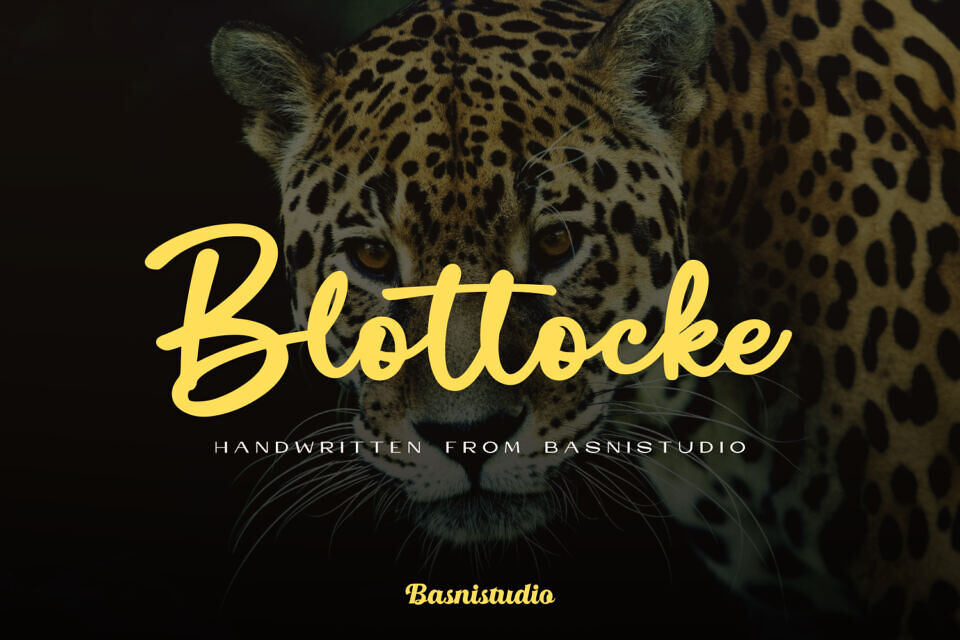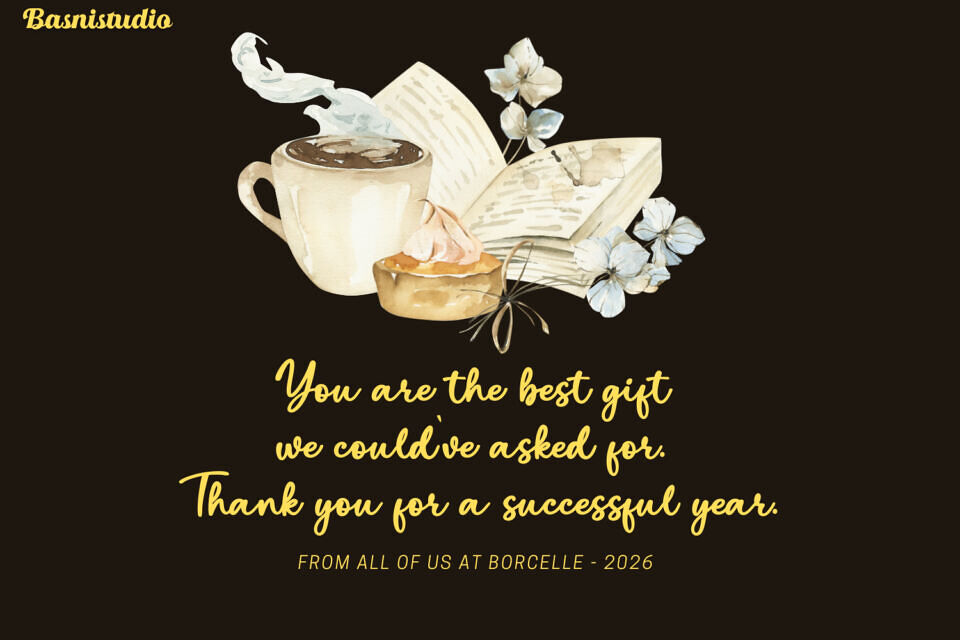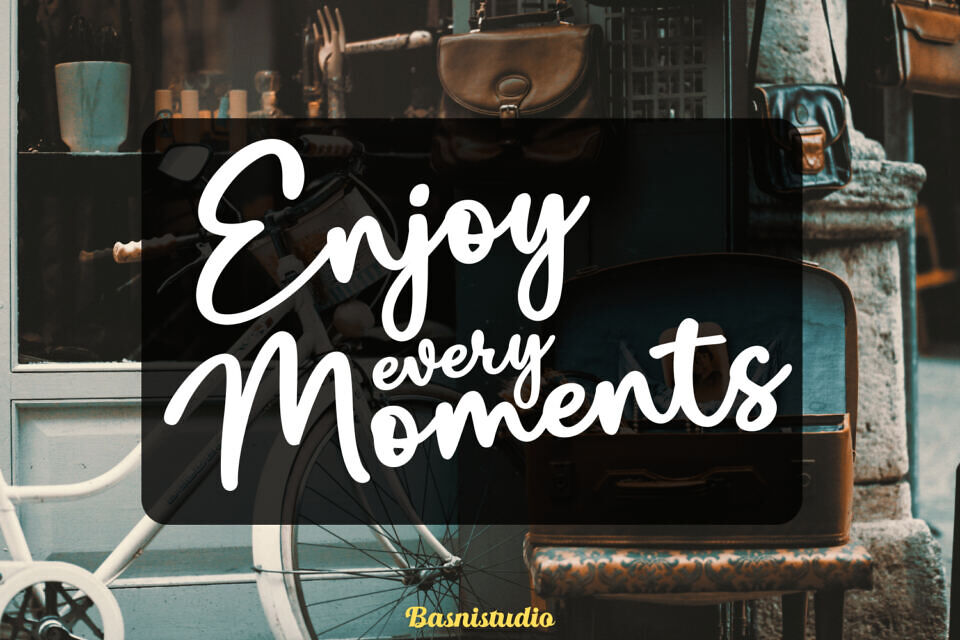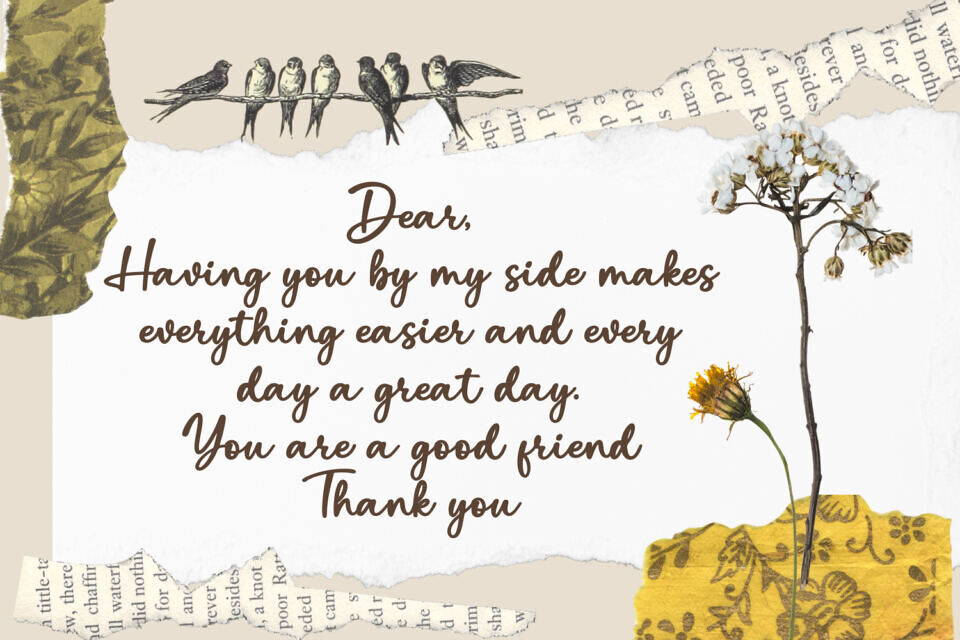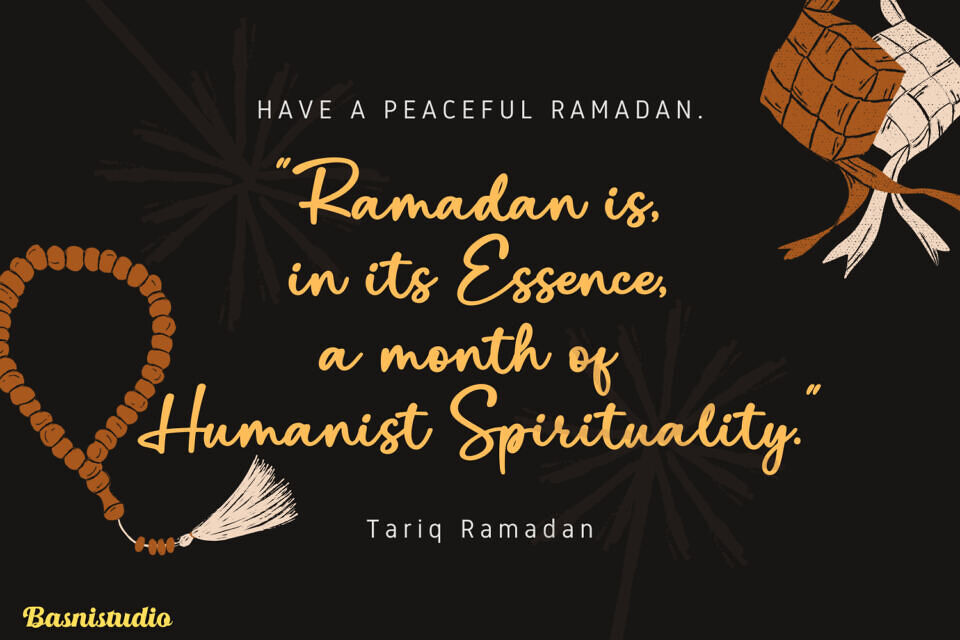
Introducing Blottocke a Handwritten Font that adds a Bold and Versatile touch to everything from branding and social media to invitations and packaging.
Whether you’re building a powerful brand identity or crafting a standout logo, Blottocke a Handwritten Font gives you the creative edge you need.